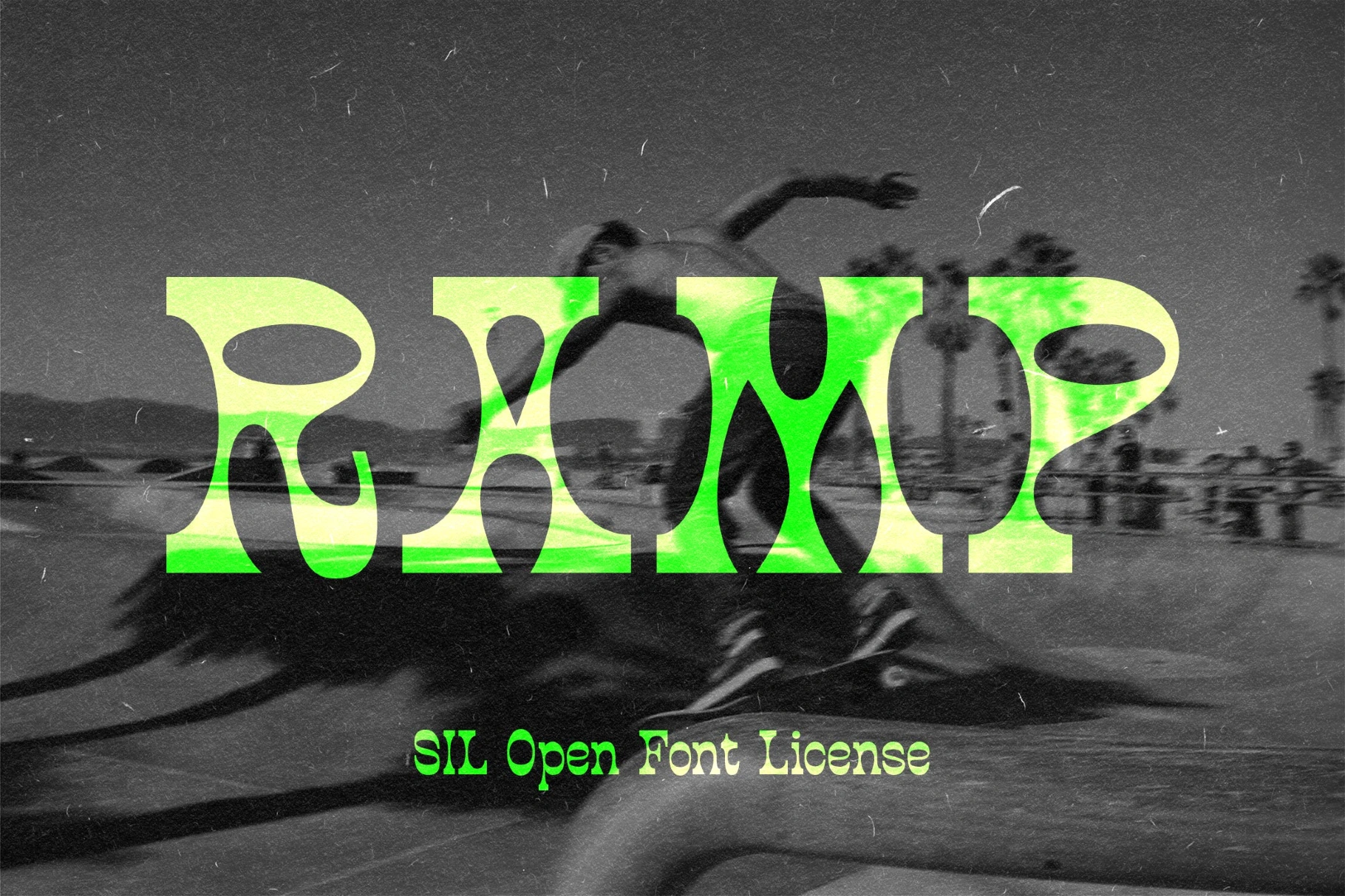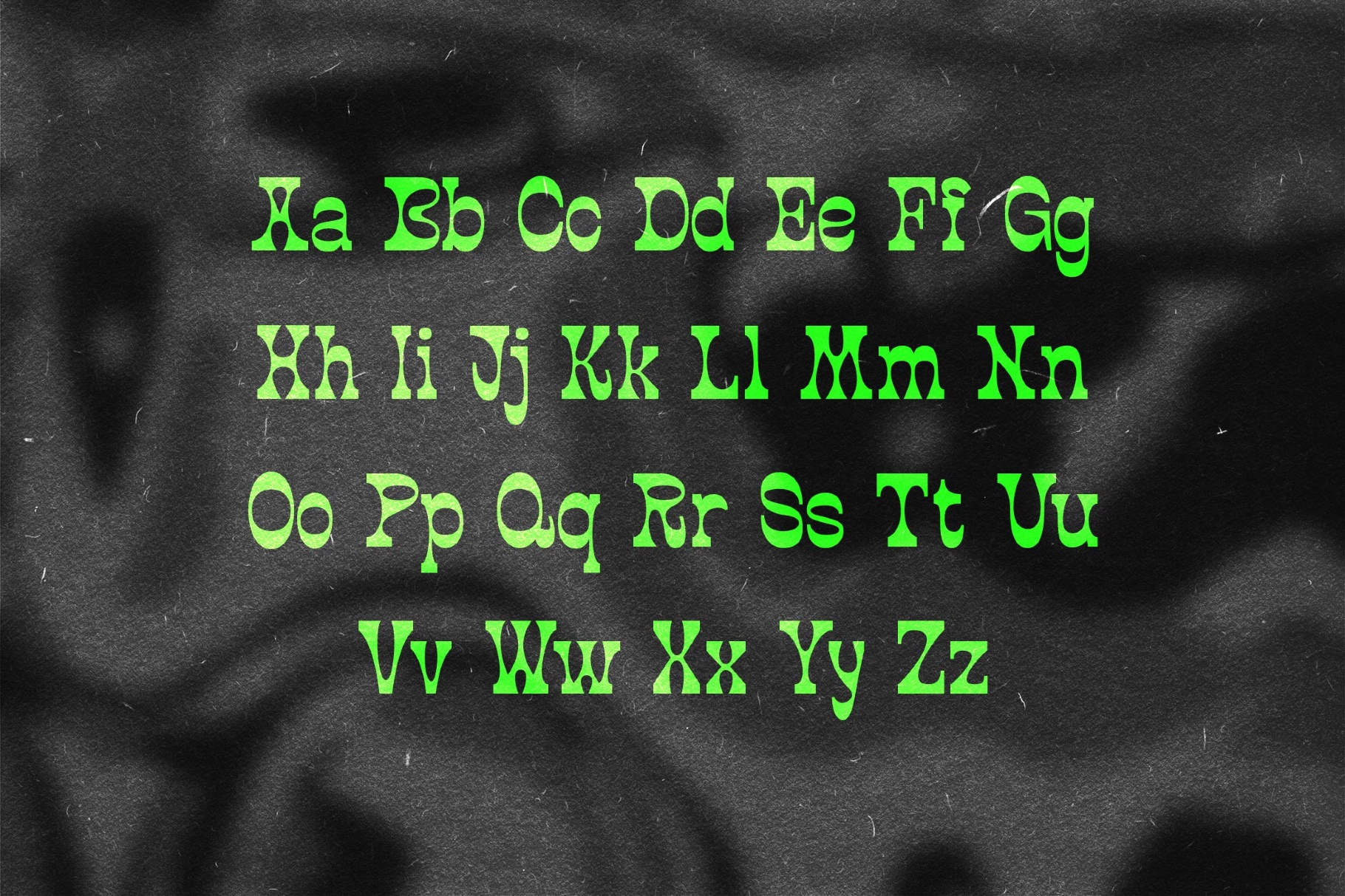
Ramp - Groovy Psychedelic Font
Ramp
Ramp is a reverse-contrast typeface shaped by skate ramps and street culture, with the raw graphic snap of deck stickers, VHS-era sports posters, and sun-struck concrete parks in late summer. It resorts to the groovy, psychedelic summer typography, which works well for poster headlines, skate branding, event graphics, logo design, merch, album art and social visuals.